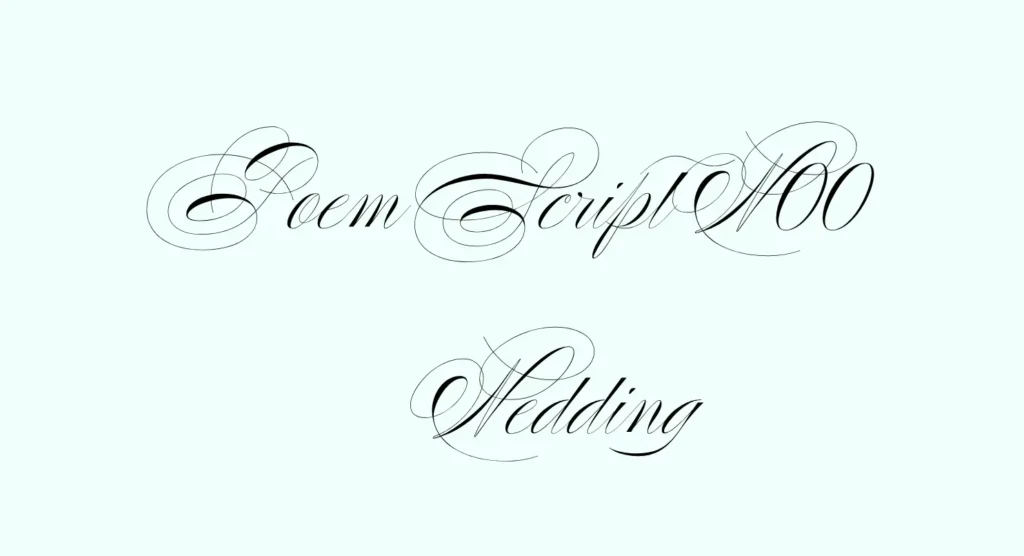
Poem Script W00 Regular Font
Poem Script W00 Regular
Poem Script W00 Regular is a calligraphy font designed by Ale Paul and published by Alejandro Paul. The letters have the smooth movement of real pen lettering, which is why even a single name looks special in it. You can download it for free and test it with your own words in the preview above.
What You Can Type With Poem Script W00 Regular
With complete upper and lowercase letters and all ten digits, Poem Script W00 Regular is ready for real wording, not just a single headline. Everyday marks like &, !, ? and @ are there too. Thanks to its accented letters, it also works for Spanish, French, German, Portuguese and Italian, not just English.
Where Poem Script W00 Regular Works Best
Designers usually reach for fonts like Poem Script W00 Regular when they're making wedding invitations, certificates and elegant quotes. Script fonts read best in short bursts, so keep it to names, titles and one-line quotes. Skip all caps: script capitals are drawn to start a word, not to fill one.
Does Poem Script W00 Regular support accented letters?
Yes. Poem Script W00 Regular includes the accented letters needed for Spanish, French, German, Portuguese and Italian, so it works for more than just English.